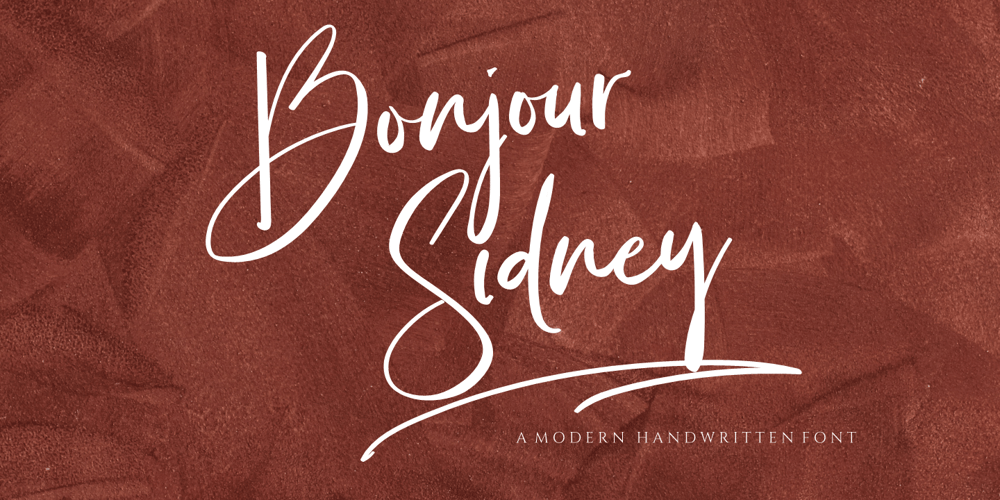
Bonjour Sydney Font Family was designed by Risca Anitawati and published by Reyrey Blue Std. Bonjour Sydney contains 1 styles and family package options. Bonjour Sidney. A stylish, modern and feminine font that will look awesome on logos, branding materials, wedding and event stationery, social media overlays, cards and so on.Bonjour Sidney includes full set of lovely uppercase and lowercase letters, multilingual symbols, numerals, punctuation, ligatures and swashes.